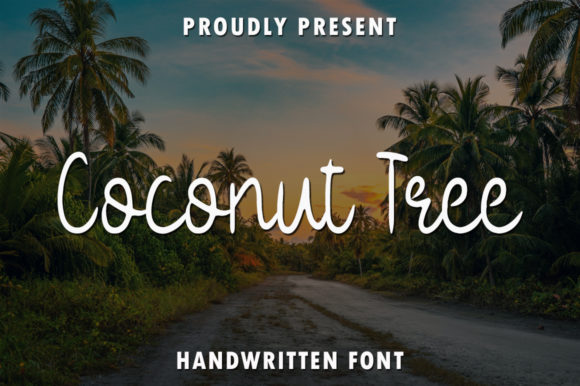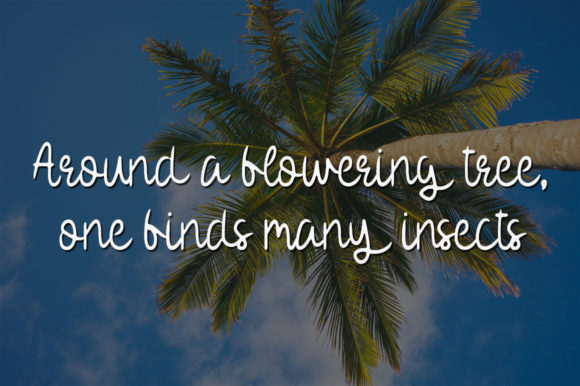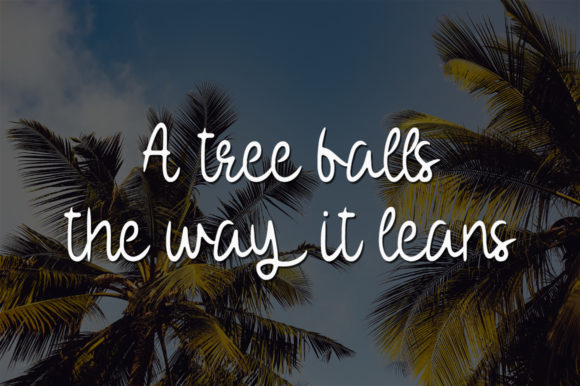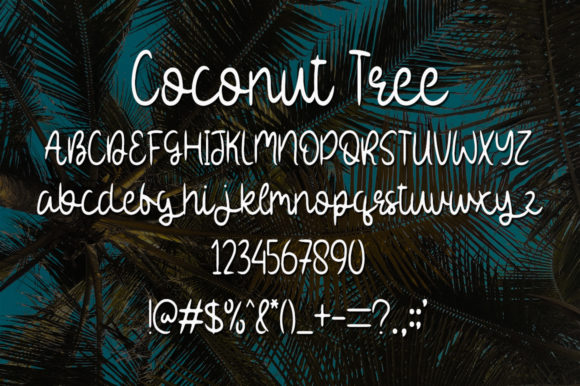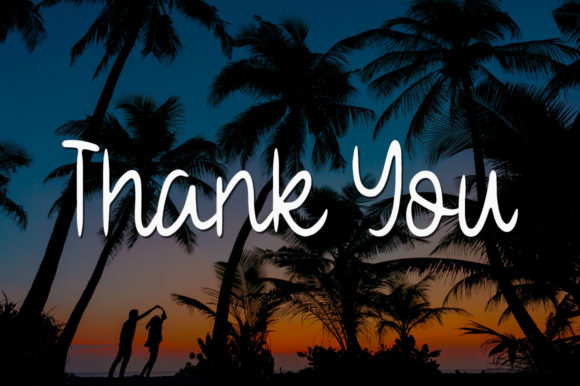
Coconut Tree Font
About Coconut Tree Font
Coconut Tree is a sweet and delicate handwritten font. Dainty and joyful, this font will be ideal for writing wedding invitations, cards or any other design that may need a romantic, personalized touch!